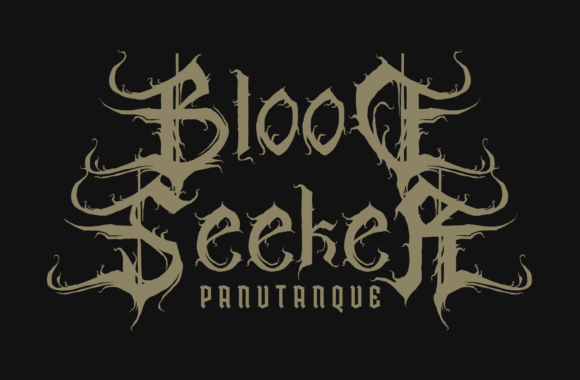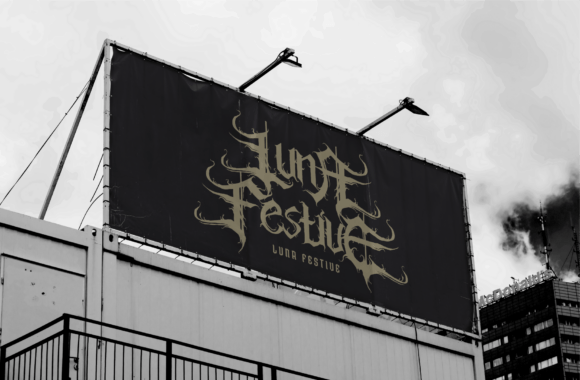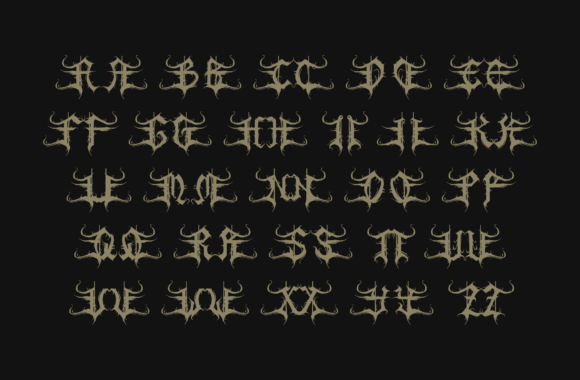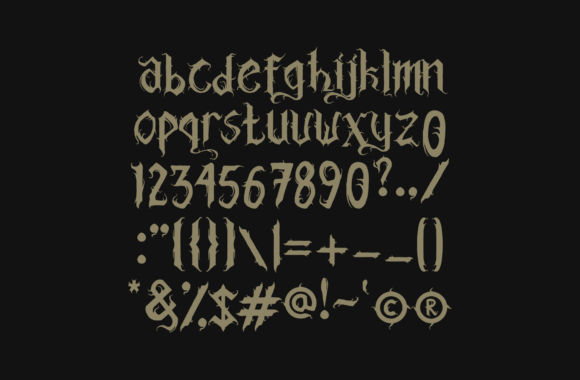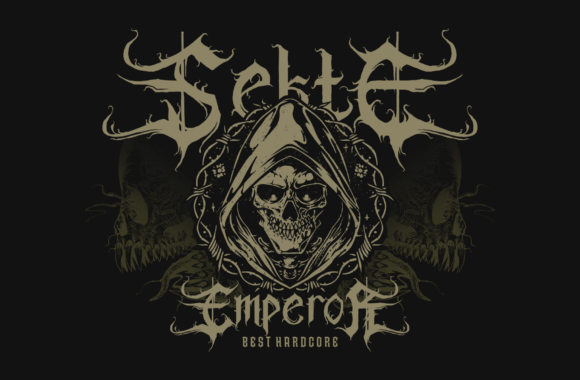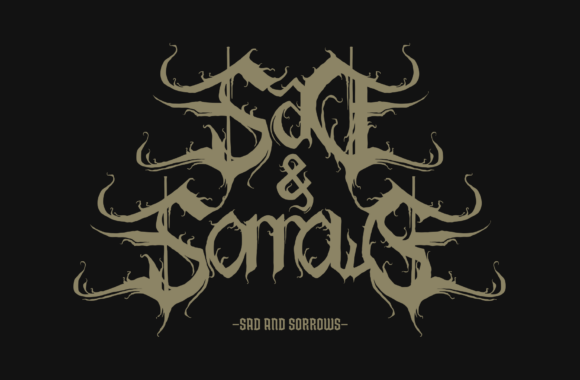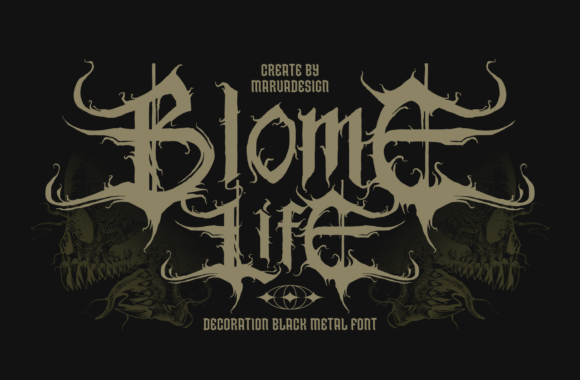
Introducing Blome Life: The Ultimate Blackletter Font for Bold Designs
Are you a designer or crafter looking for a font that embodies the bold and rebellious essence of black metal aesthetics? Look no further than Blome Life, a stunning blackletter font that is sure to make a lasting impression in any creative project. With its intricate, sharp, and dramatic details, Blome Life is the perfect choice for designs that require a touch of edginess and intensity.
The Inspiration Behind Blome Life
Blome Life is inspired by the bold and daring world of black metal, a genre of music known for its aggressive and powerful sound. The font’s design carries the essence of traditional black metal logos, with elaborate, almost gothic flourishes that make it stand out from other fonts. The result is a font that is both aggressive and artistic, with a perfect balance between chaos and beauty.
The Unique Features of Blome Life
One of the most striking characteristics of Blome Life is the fiery effect applied to the uppercase letters. This dynamic and intense detail gives the font a sense of movement and heat, making it particularly captivating for designs that aim to convey energy, power, or raw emotion. The fiery effect is reminiscent of tattoo-style artistry, with intricate and sharp details that add a touch of realism to any design.
Blome Life’s overall design is also notable for its versatility. While it is perfect for designs related to music, tattoos, and alternative subcultures, it can also be used in a variety of other applications. The font’s aggressive yet artistic curves make it suitable for designs that require a bold and daring touch, from album covers and posters to merchandise and branding.
Using Blome Life in Your Designs
Blome Life is an incredibly versatile font that can be used in a wide range of design applications. Here are a few ideas to get you started:
- Music Designs: Use Blome Life to create bold and eye-catching album covers, posters, and merchandise for metal bands and musicians.
- Tattoo Designs: The font’s intricate and sharp details make it perfect for tattoo designs, from bold and graphic tattoos to more intricate and detailed designs.
- Branding and Merchandise: Use Blome Life to create bold and daring branding and merchandise for alternative subcultures, from clothing and accessories to packaging and advertising.
Why Choose Blome Life?
So why choose Blome Life for your next design project? Here are just a few reasons:
- Unique and Bold Design: Blome Life’s unique and bold design makes it stand out from other fonts, ensuring that your designs will grab attention and leave a lasting impression.
- Highly Versatile: The font’s versatility makes it suitable for a wide range of design applications, from music and tattoos to branding and merchandise.
In conclusion, Blome Life is a stunning blackletter font that embodies the bold and rebellious essence of black metal aesthetics. With its intricate, sharp, and dramatic details, fiery effect, and versatile design, Blome Life is the perfect choice for designers and crafters looking to add a touch of edginess and intensity to their designs. Whether you’re creating album covers, tattoos, or branding and merchandise, Blome Life is sure to make a lasting impression.